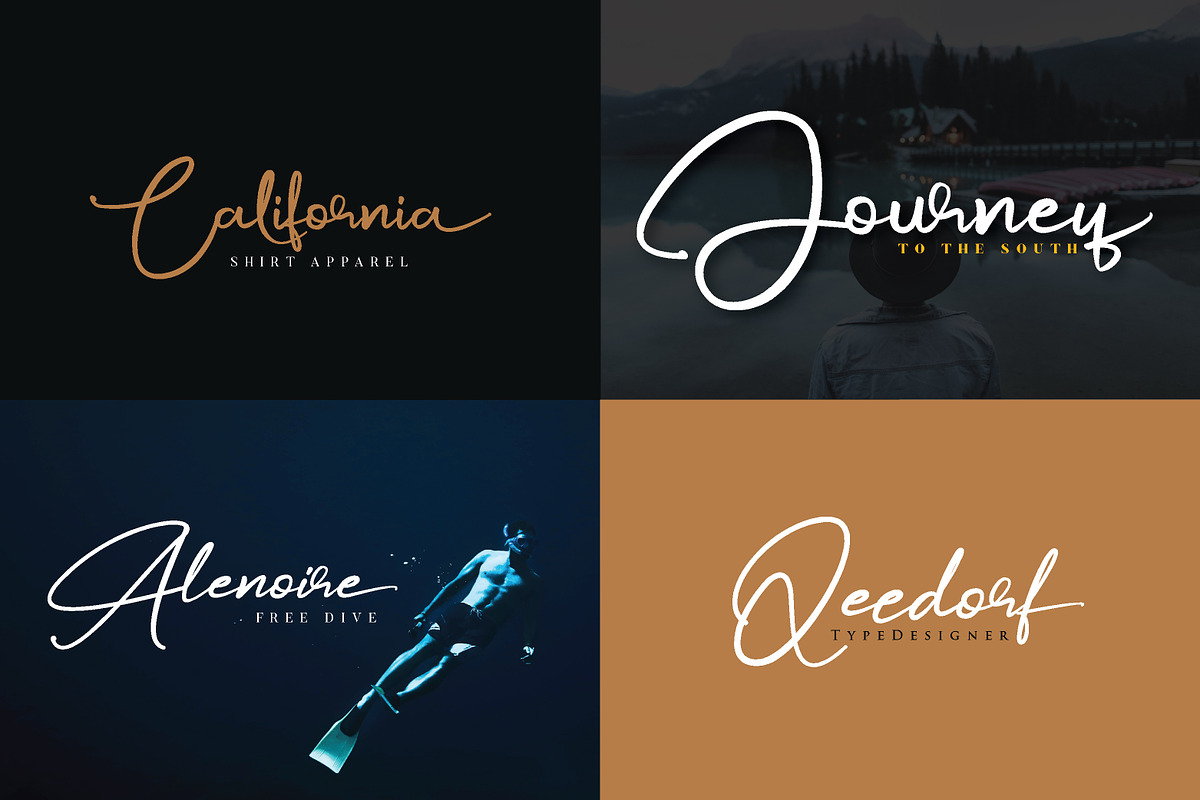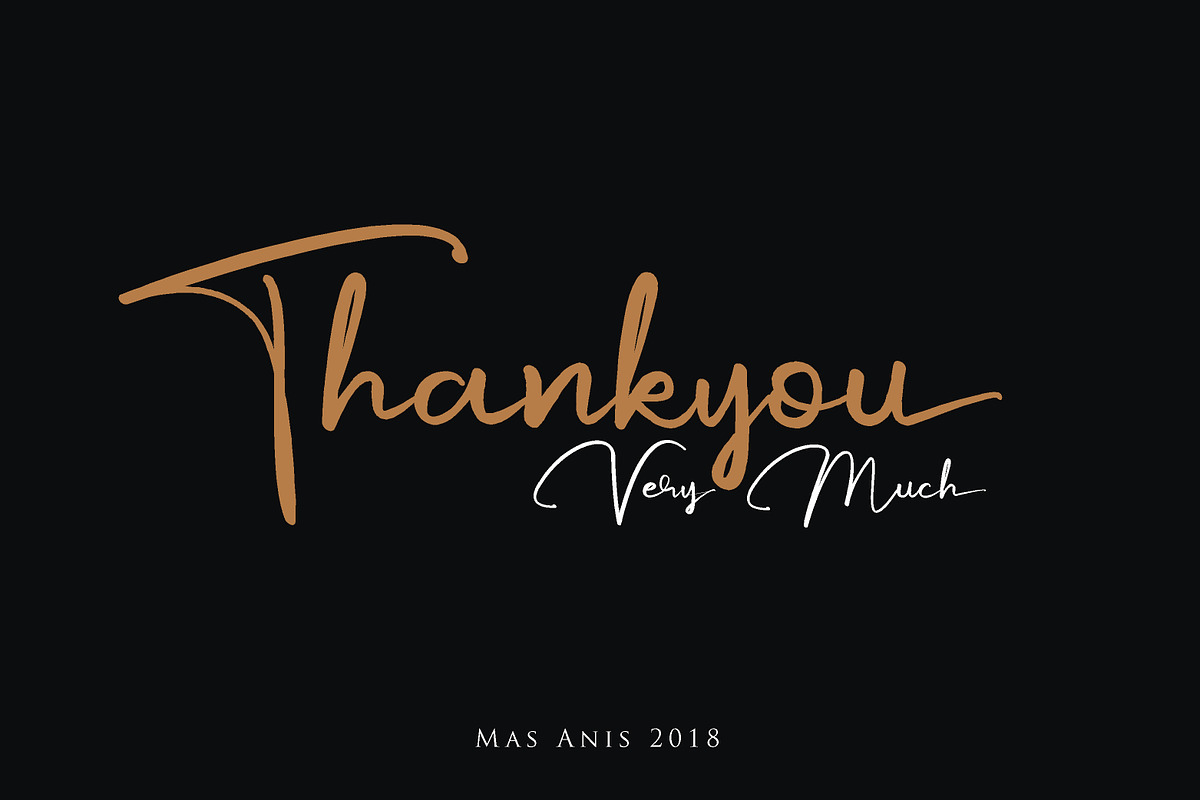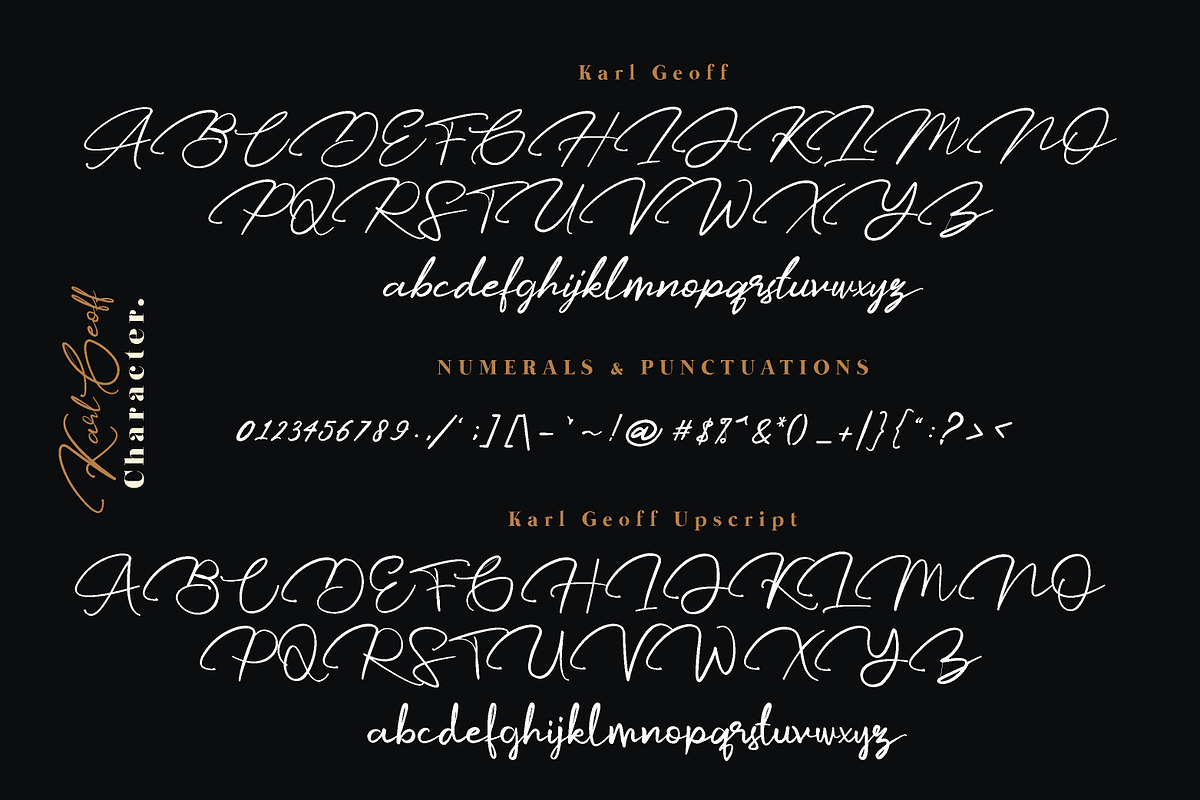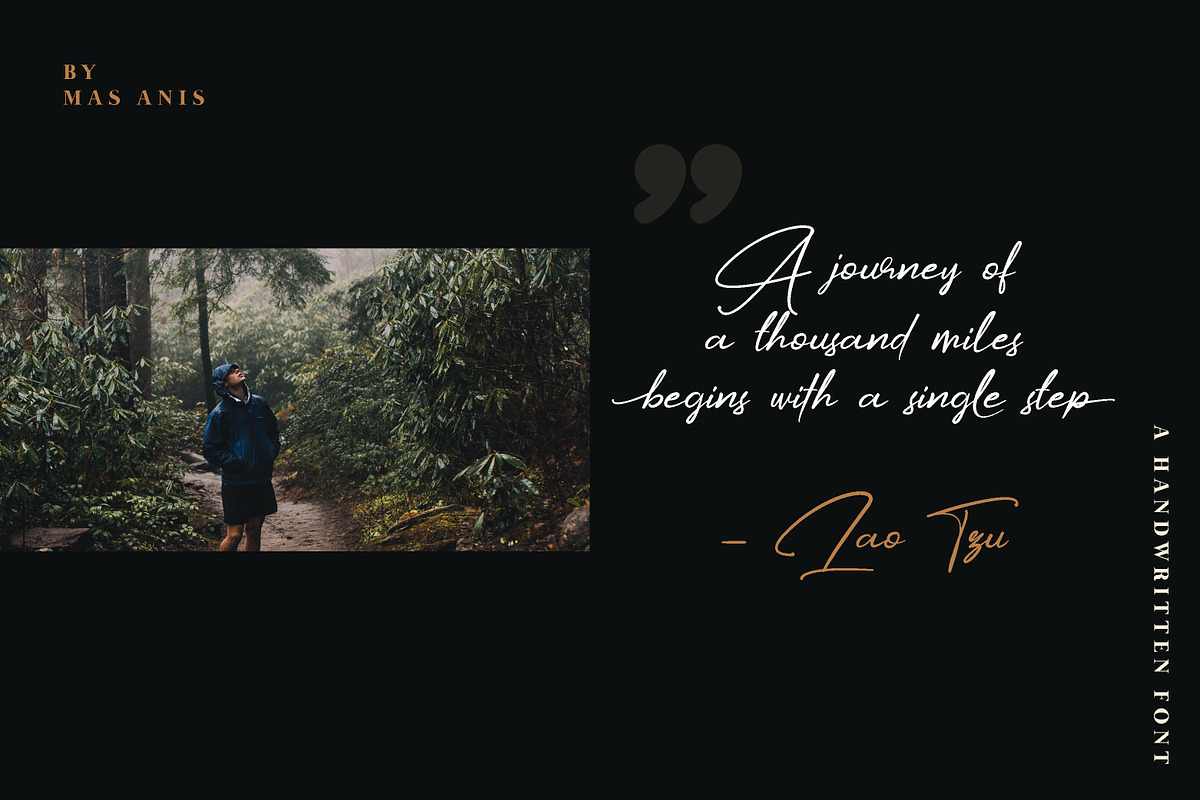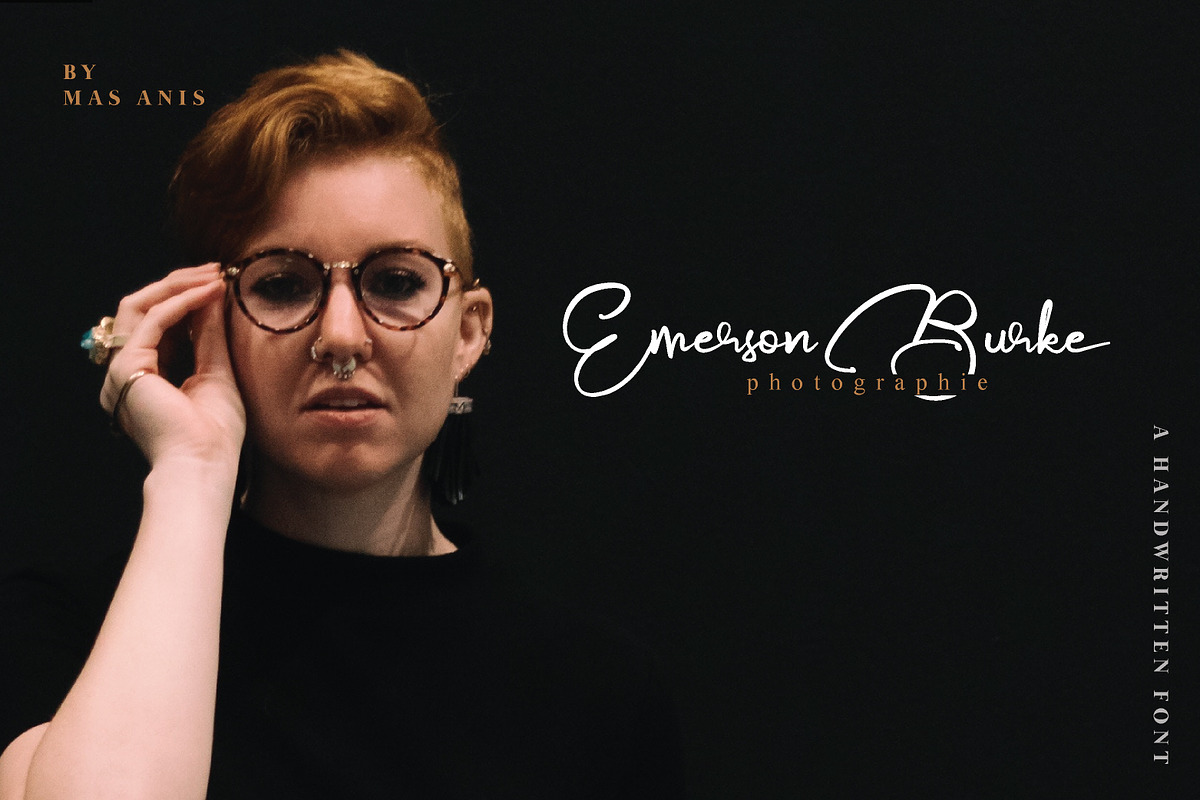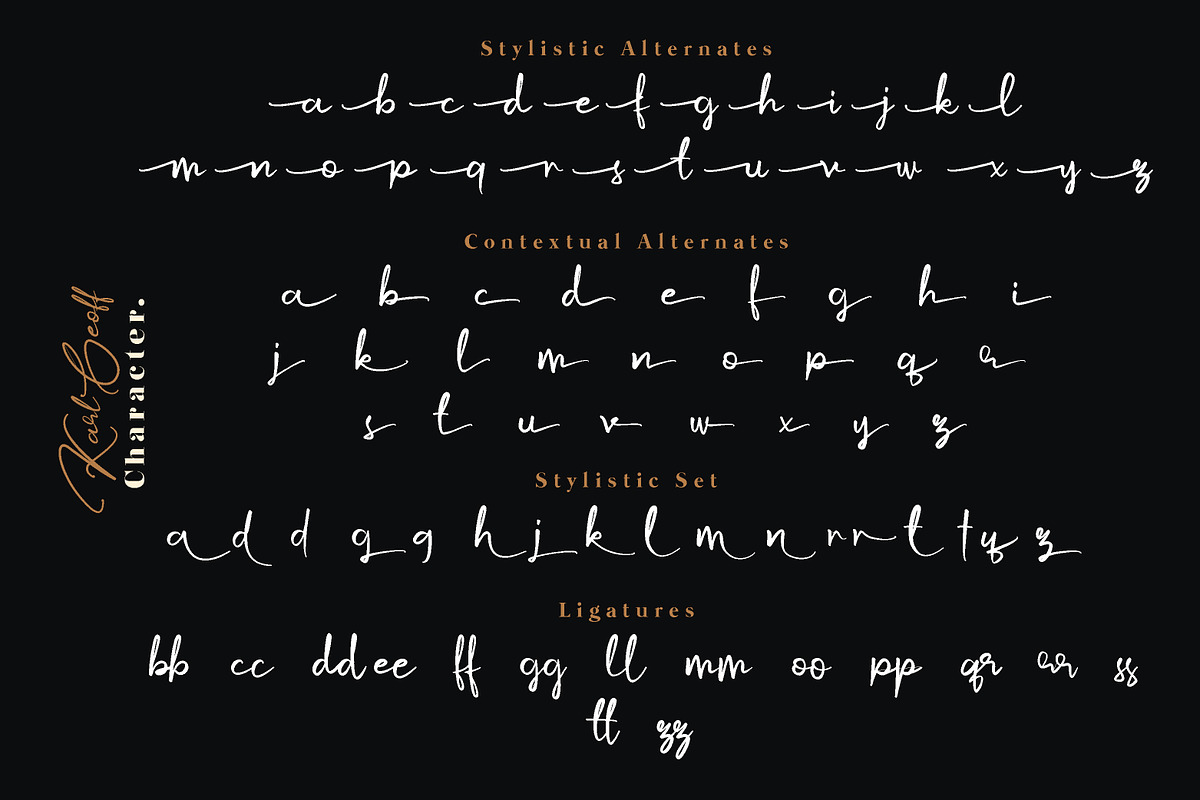
Karl Geoff
Karl Geoff is a unique and cool looking handwritten script, ideal for use in projects that need an organic and natural style. This font is great for logotype, signatures, labels, and can add an elegant and classy look to your work.
We keep Karl Geoff looks elegant, classy, readable, stylish, eye catching and easy to use.
With Modern and Classy style, make this font perfect for project like watermark for photo, wedding, event, invitation, escort card, table number, header menus, editorial, display, logos, slider blog, social media, custom address, stamps, packaging, greeting card, etc.
You can easily pair them with sans or serif font from all over the world to make your work more interesting!
Karl Geoff Features :
- Standart Uppercase and Lowercase Alphabet
- Numbers and Punctuations
- Stylistic Sets
- Contextual Alternate
- OpenType Features
- Natural and upscript style
- Multilingual support AÀÁÂÃÄÅCÇDÐEÈÉÊËIÌÍÎÏNÑOØÒÓÔÕÖUÙÜÚÛWYÝŸỲŸ